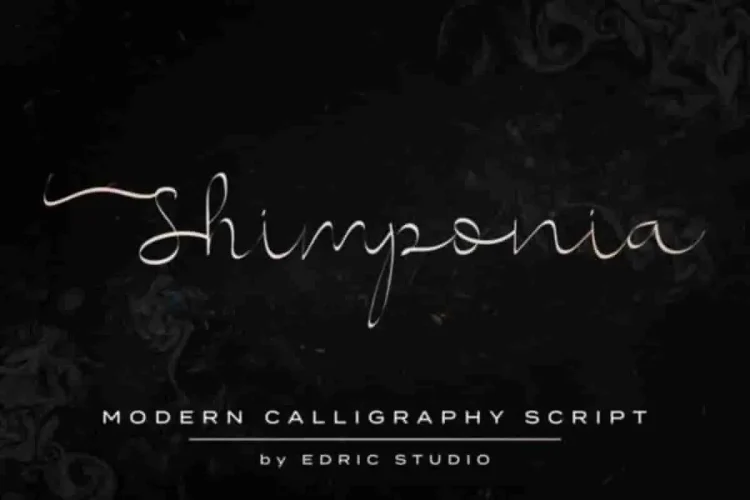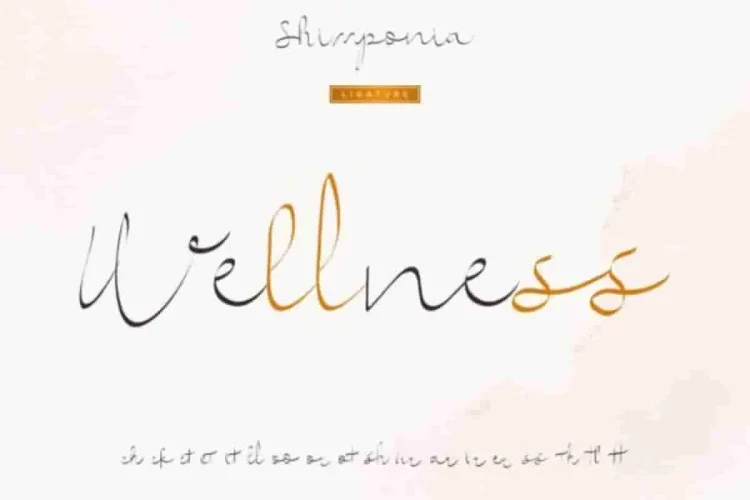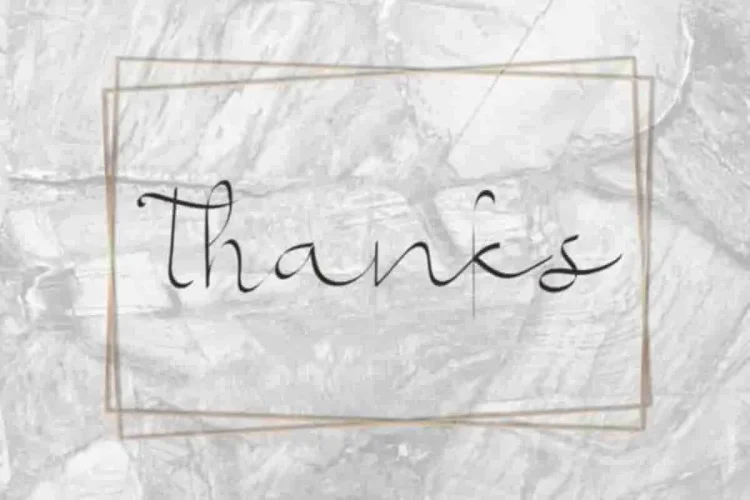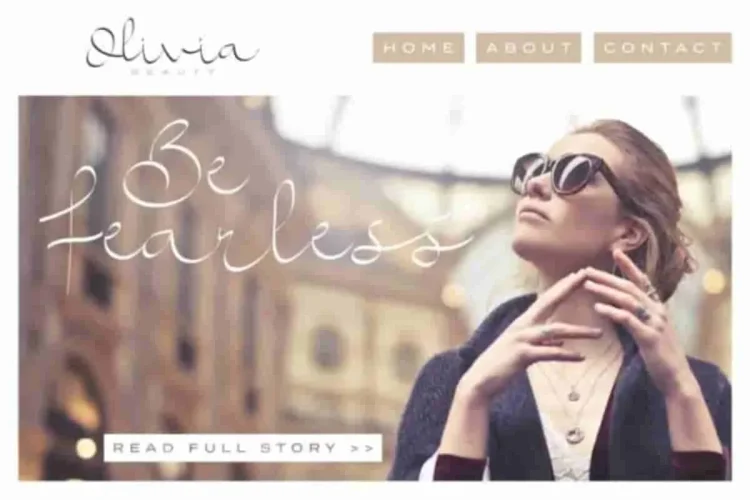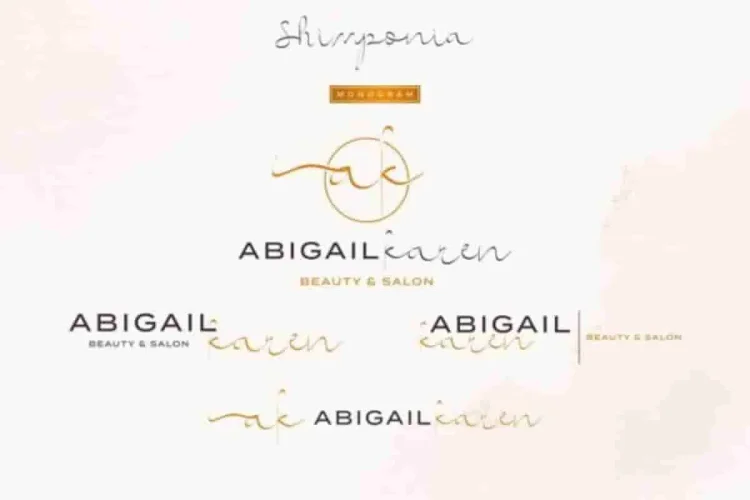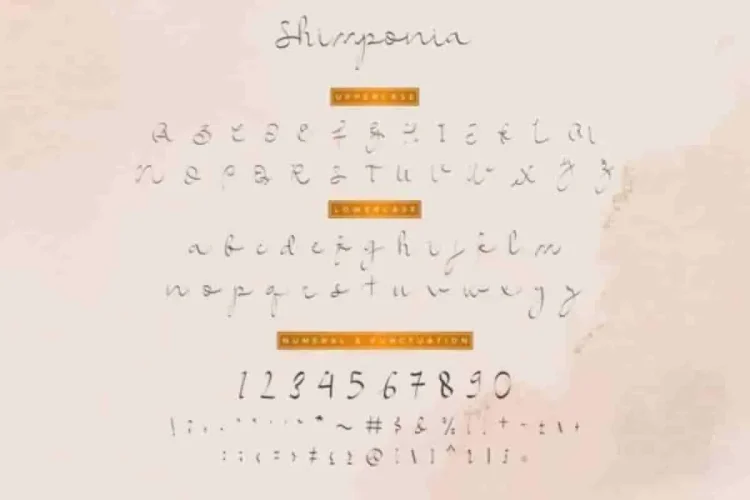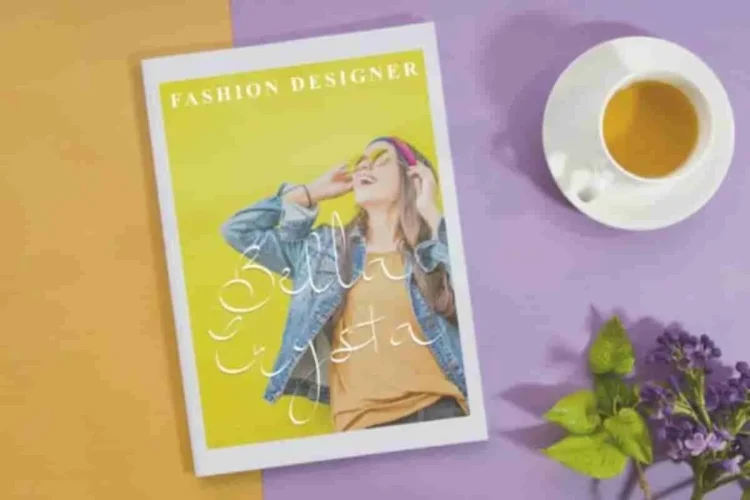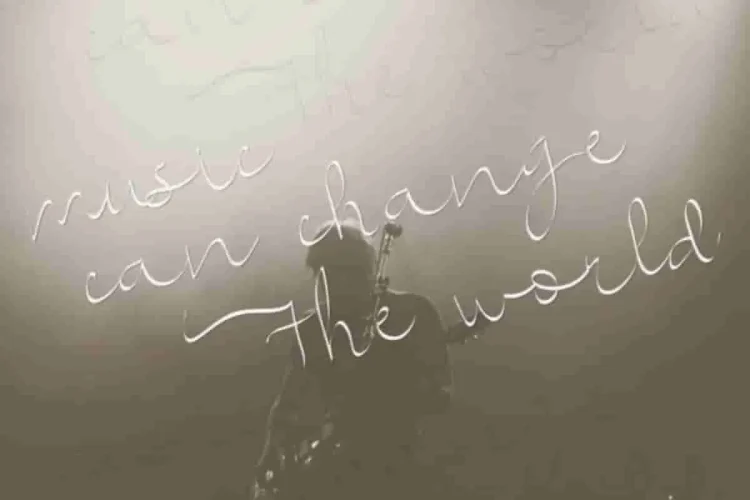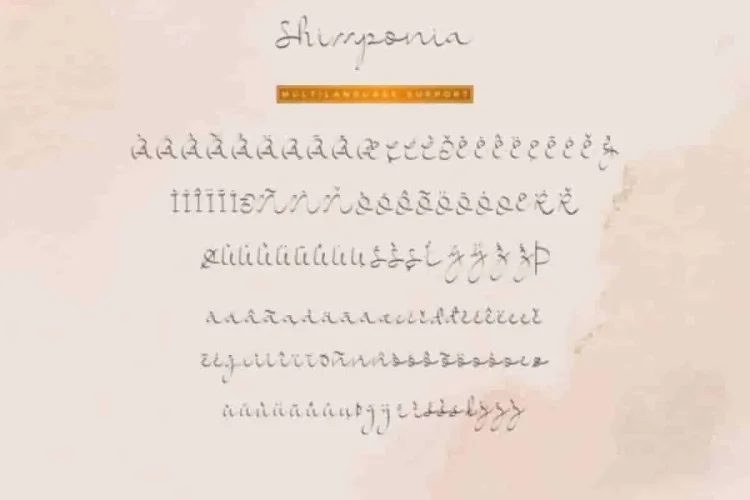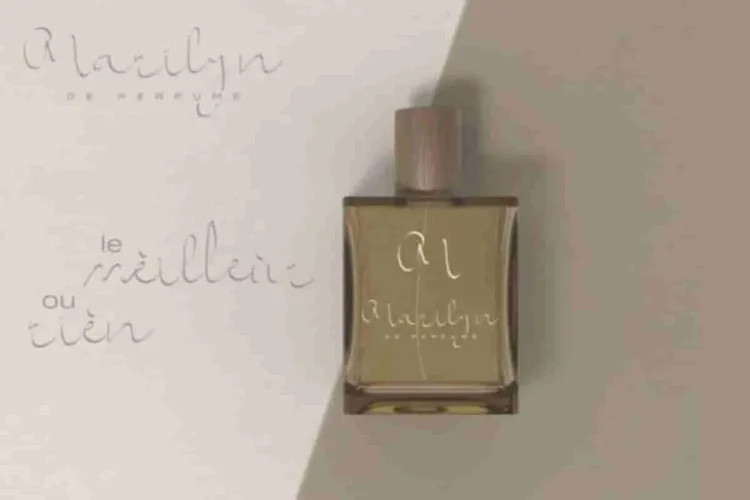
Shimponia Calligraphy Font
Edric Studio Present : Shimponia Script Font
This is a new script font with beautiful and elegant glyphs.
Shimponia Script Font has many exclusive alternate glyphs so you can explore further more. This typeface will be stunning for : Logo (Extended License Required), flyer, stationery, business card, signage, flyer, brochure etc.  With your creativity, there’s no limit using with this font.
The Shimponia Script Font is also support many international languages.